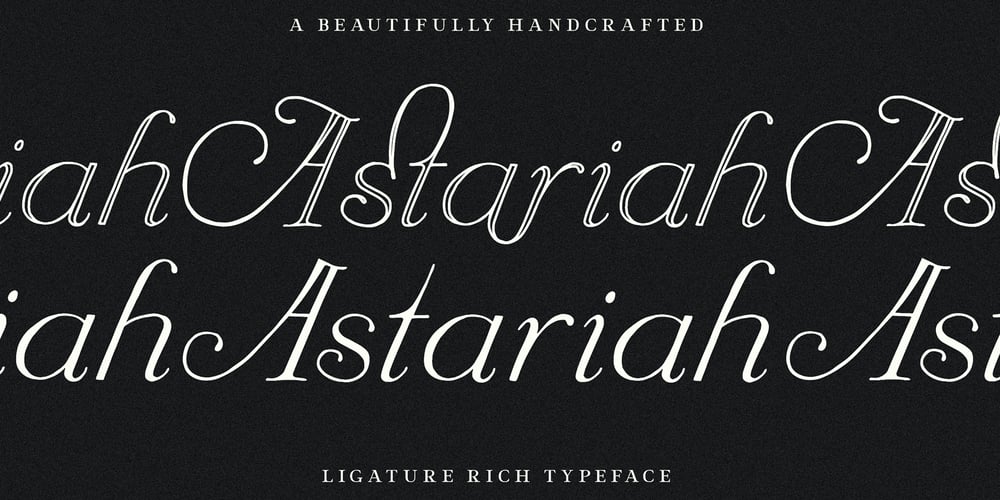
TC Astariah Font Family was designed by Tom Chalky and published by Tom Chalky. TC Astariah contains 2 styles and family package options. Whimsical, timeless, and elegant. Three words typically used to describe yours truly, and when one is introducing my latest typeface, Astariah. Drawing inspiration from typefaces of the late 1800s, Astariah is perfect for all designs requiring a splash of quirky elegance. UPDATE: Astariah now includes an additional ‘Outline’ style that perfectly aligns with the original. Both styles also host a variety of discretionary ligatures and stylistic alternates, providing buckets more creative potential!